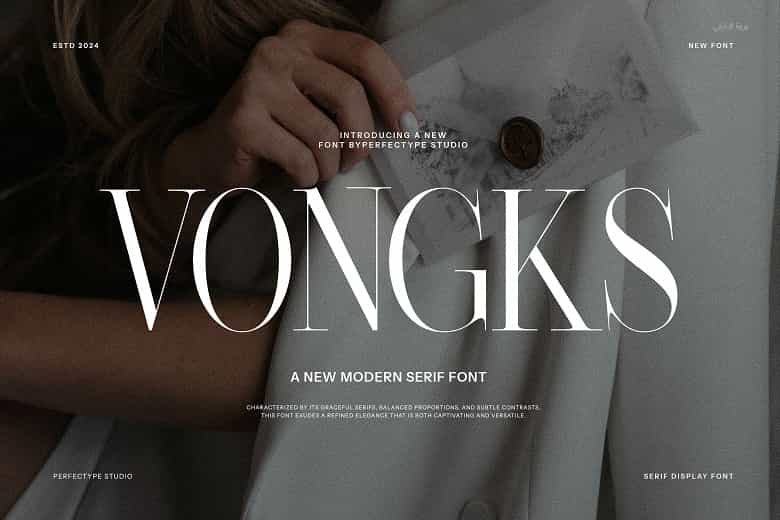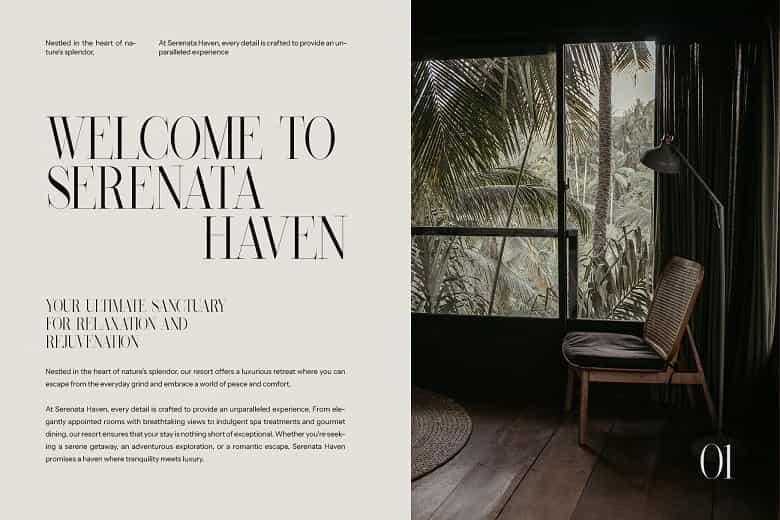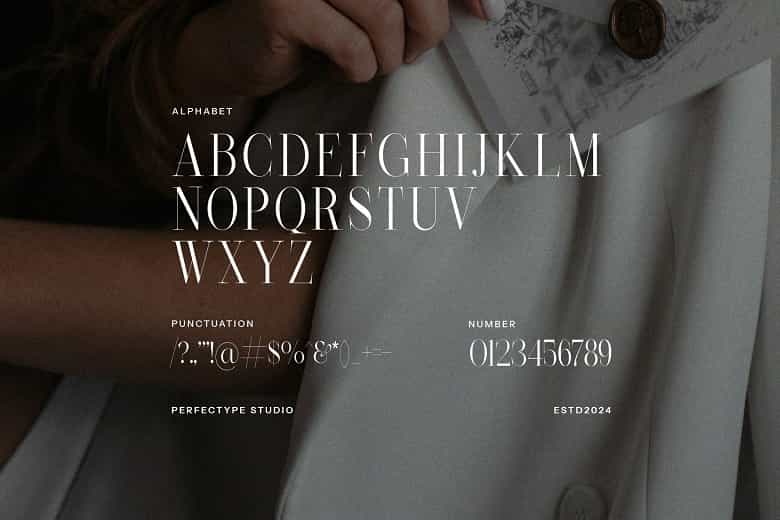
Vongks is a new modern serif font that made use of the classical look yet has a cool and chic appearance. It is best for coming up with elegant and elegant designs, giving the much needed elegance to any project.